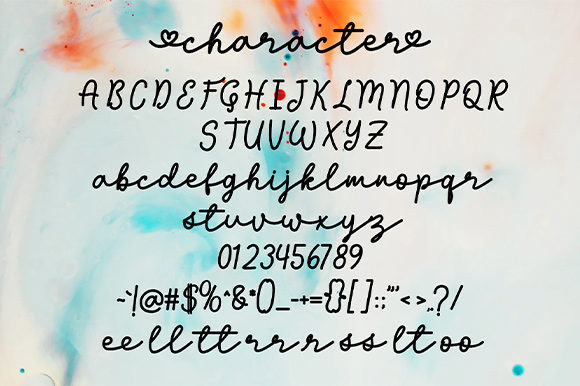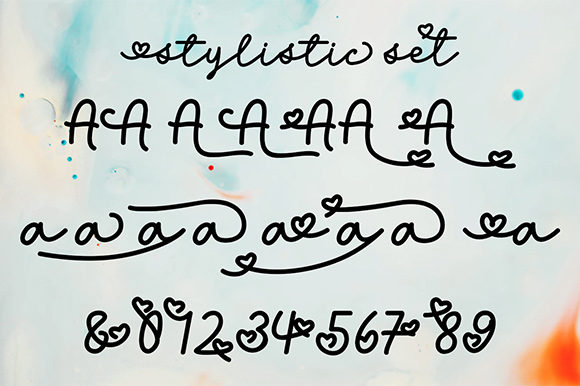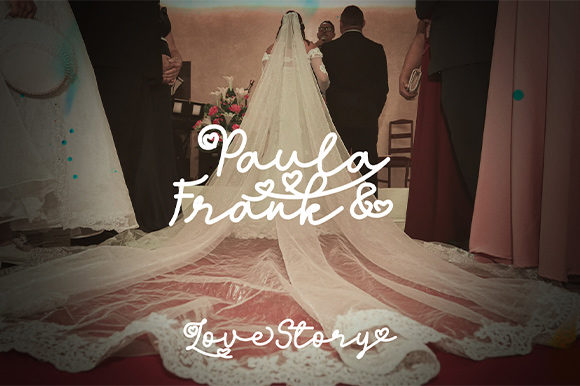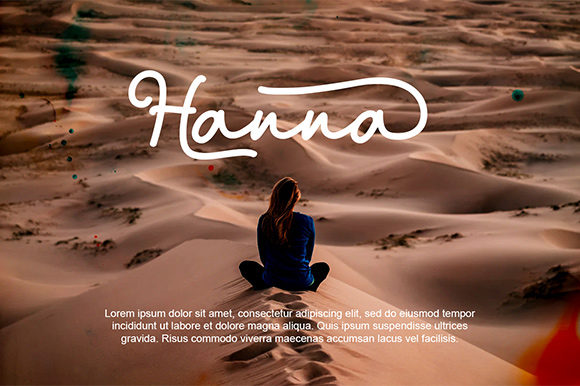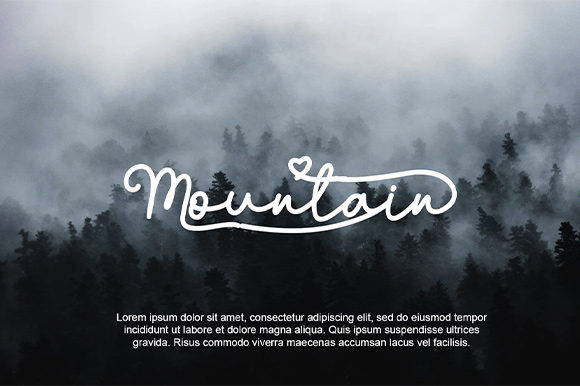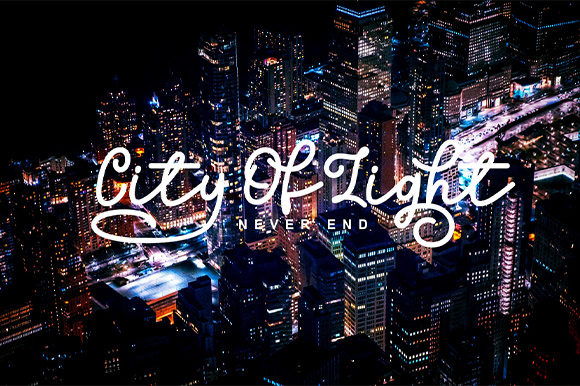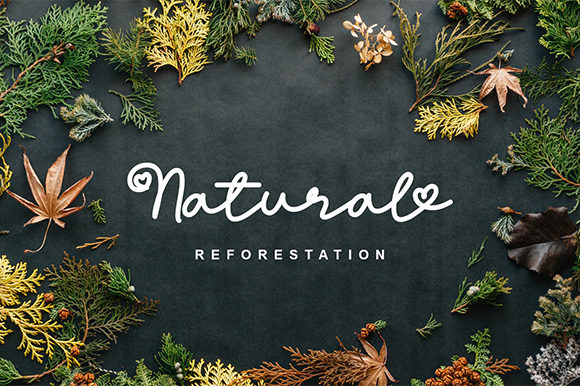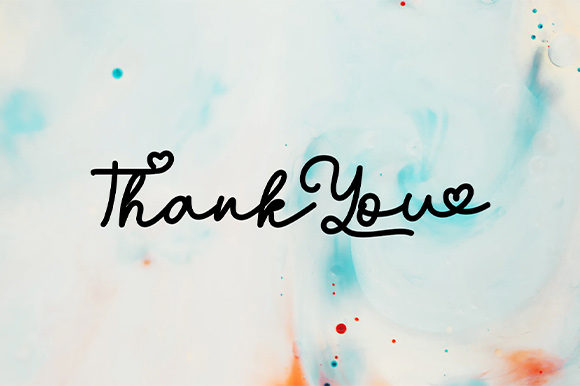
Longhoney Font
About Longhoney Font
Longhoney is a gorgeous handwritten font. It features gorgeous swashes and ligatures that make this script incredibly versatile. It comes in two versions, Regular and Love. The Love version has beautiful heart-shaped swashes that will add a romantic touch to your designs. This font is PUA encoded which means you can access all of the amazing glyphs and swashes with ease! It also features a wealth of special features including alternate glyphs and ligatures.